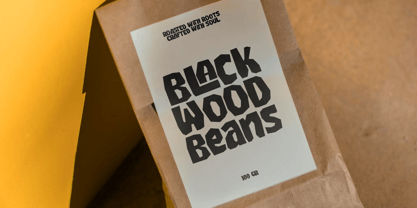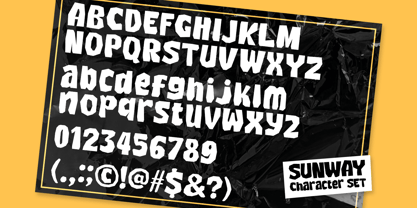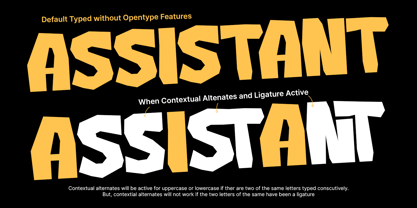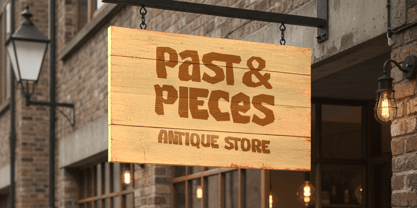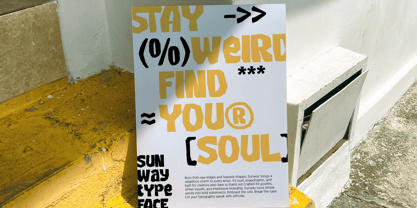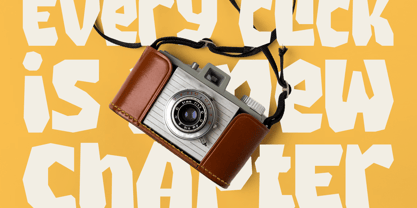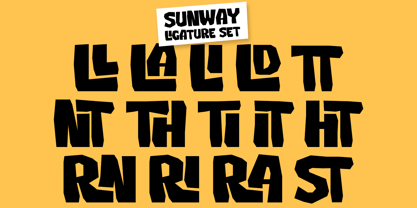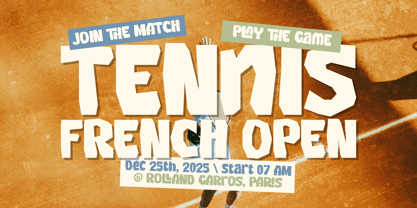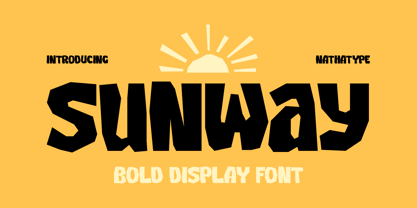
Sunway
La familia tipográfica Sunway fue diseñada por Donis Miftahudin y publicada por Nathatype. Sunway contiene 1 estilos. Más información sobre esta familia
Sunway is a powerful and modern display font. Crafted with a thick weight and smooth rounded letter shapes, Sunway stands out with its unique letter corners, which add a sharp, geometric edge to an otherwise soft and friendly form. This distinctive blend of curves and angles creates a contemporary style that feels both playful and futuristic, making Sunway an excellent choice for standout typography. In addition, enjoy the features here. Features: Alternates Ligatures Multilingual Supports PUA Encoded Numerals and Punctuations Sunway fits in logos, quotes, branding, posters, and many more designs. Find out more ways to use this font by taking a look at the font preview. Thanks for purchasing our fonts. Hopefully, you have a great time using our font. Feel free to contact us anytime for further information or when you have trouble with the font. Thanks a lot and happy designing.